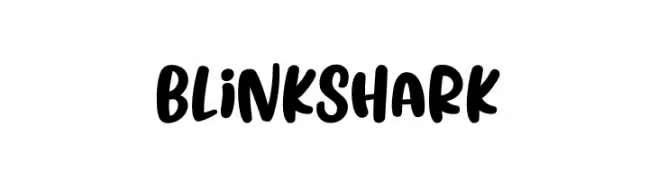
A modern, rounded stencil font with bold, expanded characters.
A bold, geometric stencil font with a modern, industrial style.
A bold, stencil-style font with expanded, geometric characters.
A dynamic and elegant script font with a modern twist.
A modern, elegant font with geometric and clean lines.
A flowing, elegant cursive font with graceful loops and swirls.
A bold, striped script font with flowing curves and a decorative style.
An elegant script font with intricate loops and decorative flourishes.
A flowing, cursive script font with elegant, interconnected characters.
An elegant script font with flowing, cursive letters and high contrast strokes.
A modern, elegant script font with flowing, cursive letterforms.
A bold, playful font with rounded edges and a hand-drawn feel.
A bold, oblique font with rounded, dynamic characters.
A playful handwritten font with tall, narrow letterforms and a light, airy feel.
A light, oblique font with a modern and elegant style.
A playful, handwritten font with rounded edges and consistent stroke widths.
A dynamic, oblique font with smooth curves and a medium weight.
An elegant script font with flowing, cursive characters and a sophisticated style.
A playful and whimsical font with curly, flowing letterforms and decorative flair.
A delicate, elegant handwritten script with fluid, continuous strokes.
An elegant serif font with refined strokes and classic appeal.
A dynamic, brush-style handwritten font with expressive strokes.
A playful, handwritten script font with fluid, connected characters.
A bold, dynamic handwritten font with fluid strokes and a cohesive style.
A lively, handwritten font with dynamic strokes and artistic flair.
A bold, handwritten font with a playful and organic style.
A playful, handwritten-style font with bold, rounded characters.
A lively, bold script font with elegant, flowing cursive letters.
A bold, hand-drawn font with textured strokes and dynamic forms.
A modern, rounded sans-serif font with smooth curves and balanced spacing.
A bold, rounded font with a modern and friendly appearance.
A bold, italicized font with rounded edges and a modern, dynamic style.
A modern, italicized font with smooth, rounded edges and a dynamic appearance.